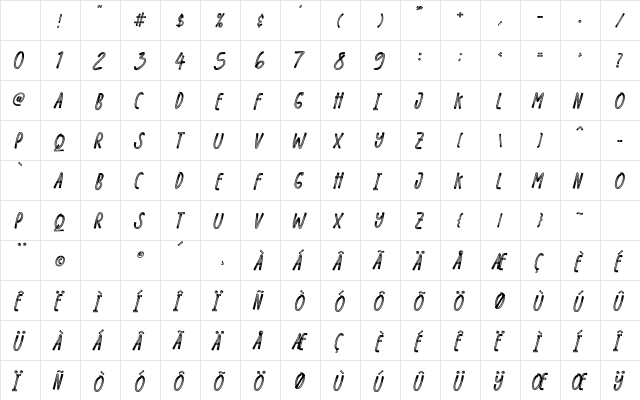
Complete BLOGGER 1983 BRUSH Regular glyph index. Displaying only characters natively supported by BLOGGER 1983 BRUSH Regular font.
BLOGGER 1983 BRUSH flows with the natural rhythm of handwritten lettering, making it ideal for designs that call for warmth and personal expression.
Font Pairing: Combine BLOGGER 1983 BRUSH with a simple geometric sans for maximum contrast - the tension between flowing curves and clean structure is a classic typographic pairing.
Pro Tip: Use BLOGGER 1983 BRUSH for short runs of text - names, titles, or taglines. Extended body copy in script faces tires the eye quickly.